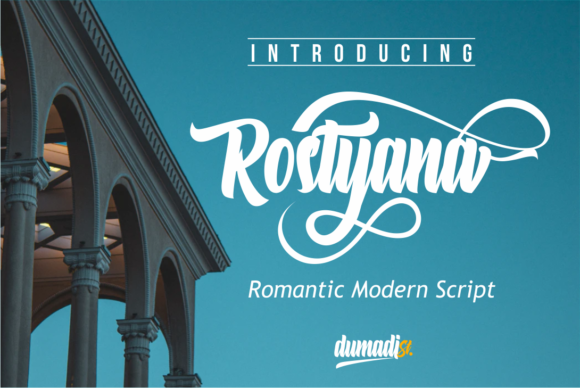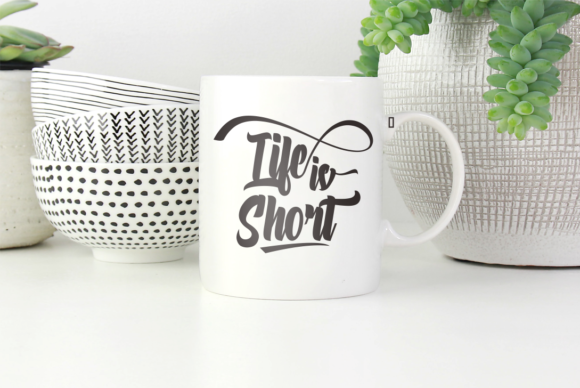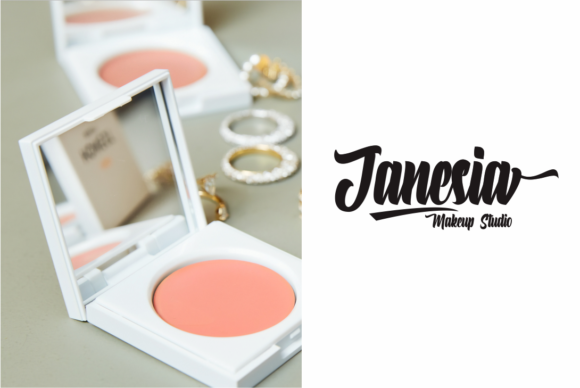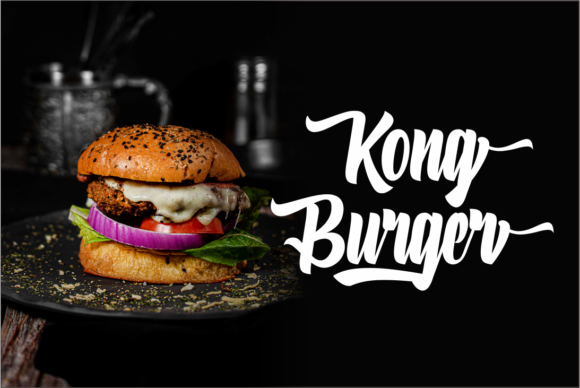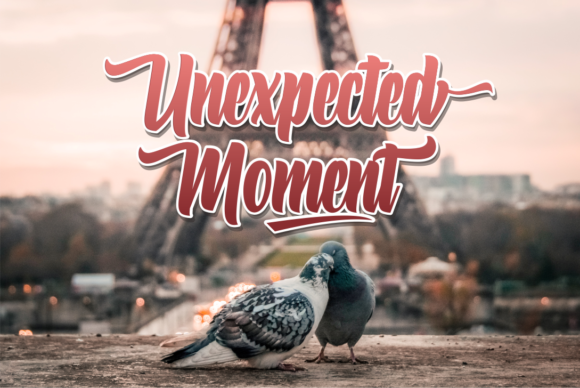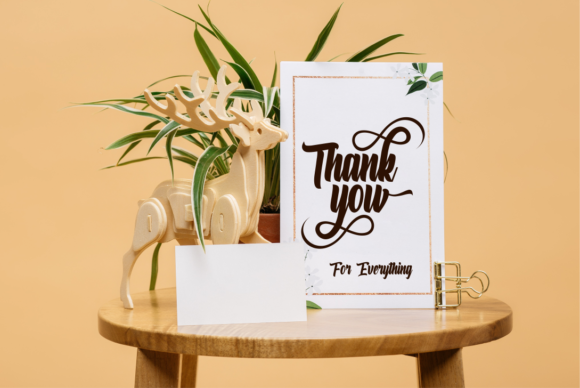
Rostyana Font
About Rostyana Font
Rostyana is a cute and modern script font. Fall in love with its authentic feel and use it to create gorgeous wedding invitations, beautiful stationary art, eye-catching social media posts, and cute greeting cards.